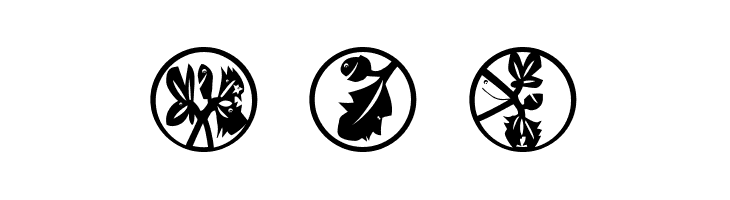
• Xaligraphy Italic
( Fonts by Zdenek Gromnica - www.futuremillennium.com )
A dynamic, italic font with sharp, angular strokes and a modern edge.
• Xaligraphy Thin
( Fonts by Zdenek Gromnica - www.futuremillennium.com )
A dynamic, calligraphic font with sharp, angular strokes and high contrast.
• Xaligraphy ThinItalic
( Fonts by Zdenek Gromnica - www.futuremillennium.com )
A dynamic, thin italic font with a modern calligraphic style.
• XmasImprovisations
A collection of festive, circular icons with Christmas-themed illustrations.
• Xtreme Chrome
( Fonts by www.vicfieger.com )
• XW Zar
A modern, clean sans-serif font with uniform strokes and high legibility.
• XW Zar Bold
A bold and modern font with thick, uniform strokes ideal for impactful headlines.
• XW Zar Bold Italic
Bold, italicized font with a modern and assertive style.
• XW Zar Italic
A modern sans-serif italic font with clean lines and balanced proportions.
• Y2K PopMuzik AOE
( Fonts by Astigmatic One Eye Typographic Institute - Brian J. Bonislawsky - astigmatic.com )
A playful, dotted font with a retro pop culture vibe.
• Y2K PopMuzik Outline AOE
( Fonts by Astigmatic One Eye Typographic Institute - Brian J. Bonislawsky - astigmatic.com )
A playful, outlined font with a retro Y2K vibe and whimsical embellishments.
• Yesterday BRK
A bold, geometric font with a modern and impactful design.
• ympyroity
( Fonts by www.junkohanhero.com )
A playful, hand-drawn font with rounded, irregular shapes.
• YOU ALL EVERYBODY
A playful, rounded handwritten font with a friendly and informal style.
• You Wish You Were a Shirley
A playful, textured display font with unique patterns in each letter.
• Youshun Regular